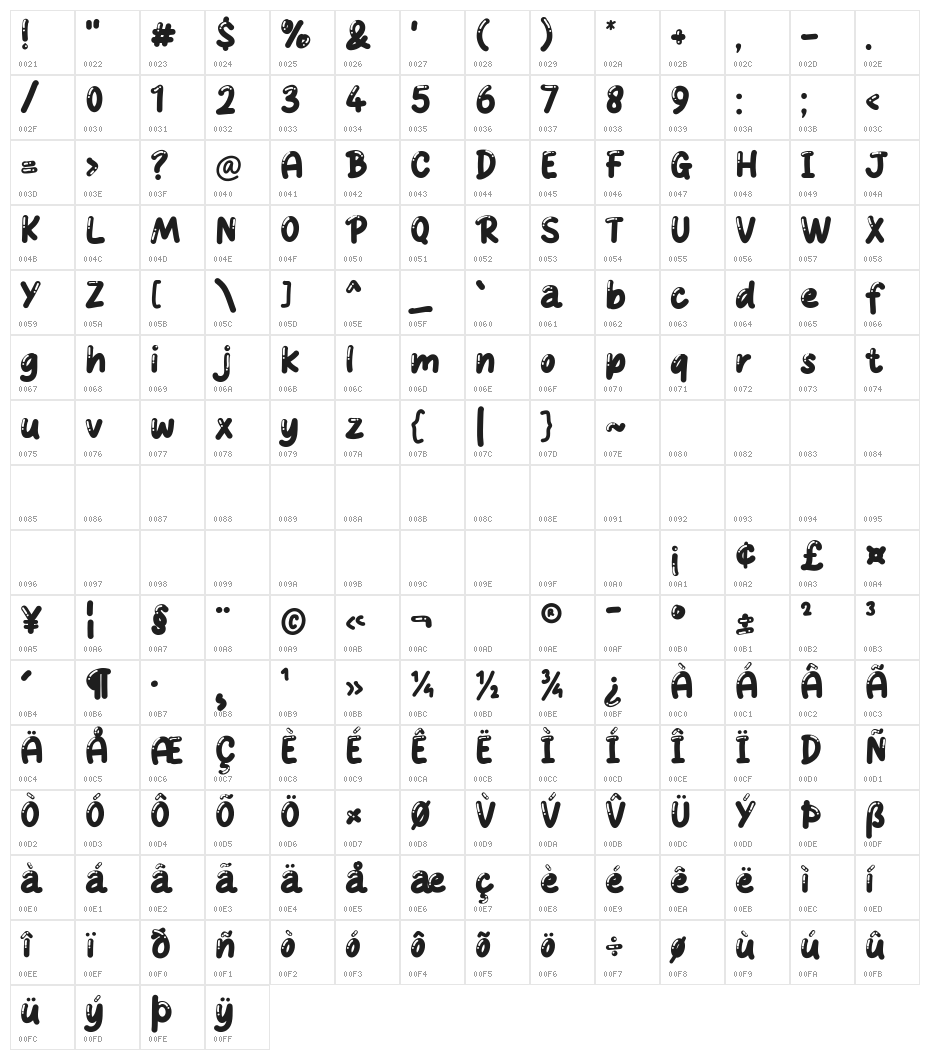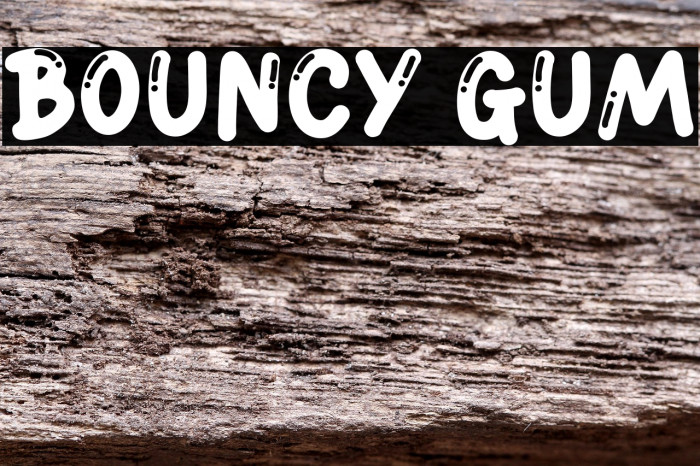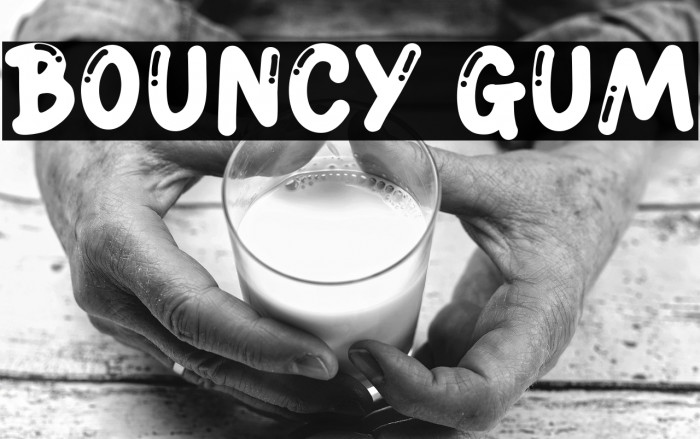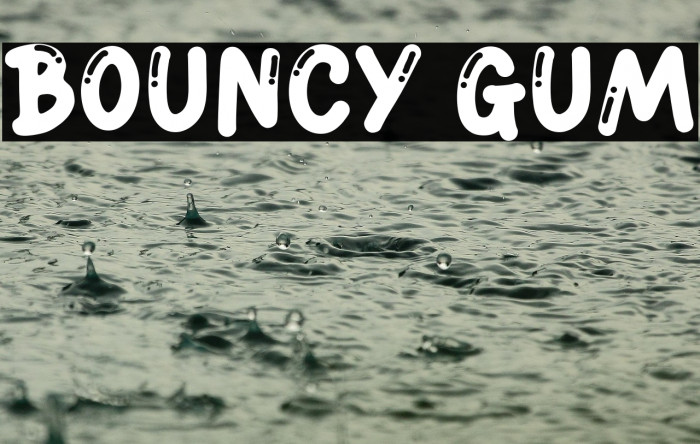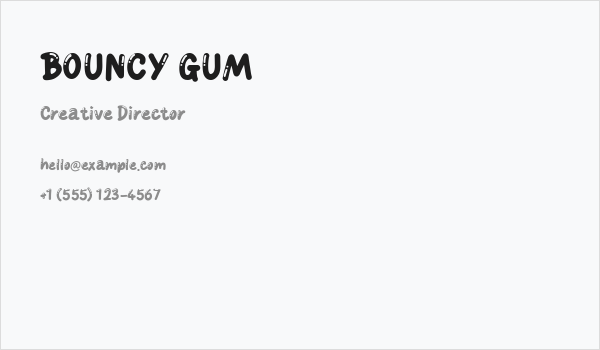
BOUNCY GUM Font
BOUNCY GUM Description
This playful and vibrant font features a bubbly, rounded style that exudes a sense of fun and whimsy. Each character is designed with a bold, cartoonish flair, making it ideal for projects that require a lively and energetic touch. The letters are thick and well-spaced, ensuring readability while maintaining a unique, eye-catching appearance. The font's design includes subtle highlights on the upper left of each character, adding a three-dimensional effect that enhances its playful nature. This font is perfect for children's books, party invitations, or any creative project that aims to capture a youthful and joyous spirit.
| Overall Style | Playful, Cartoonish |
| Proposed Projects | Ideal for children's books, party invitations, playful branding, and creative projects. |